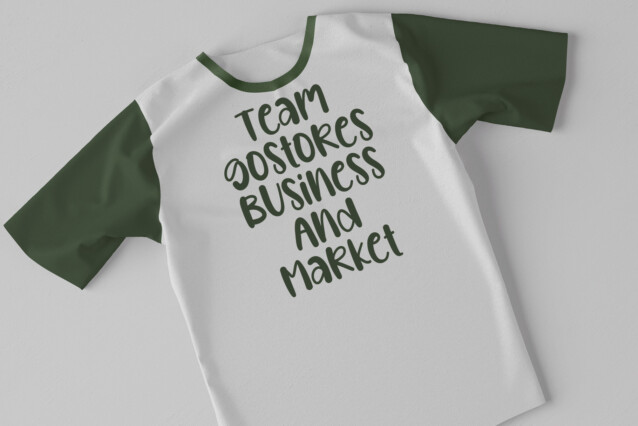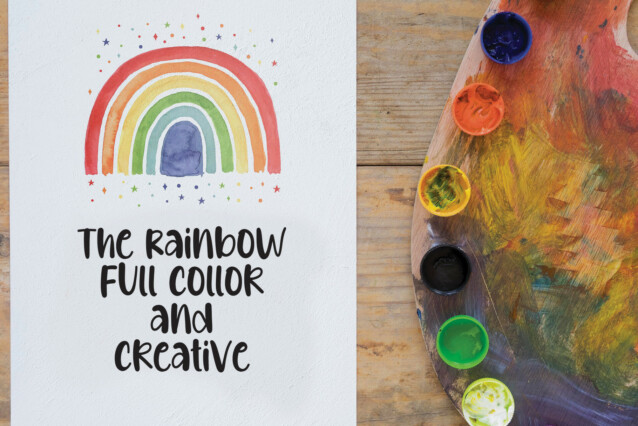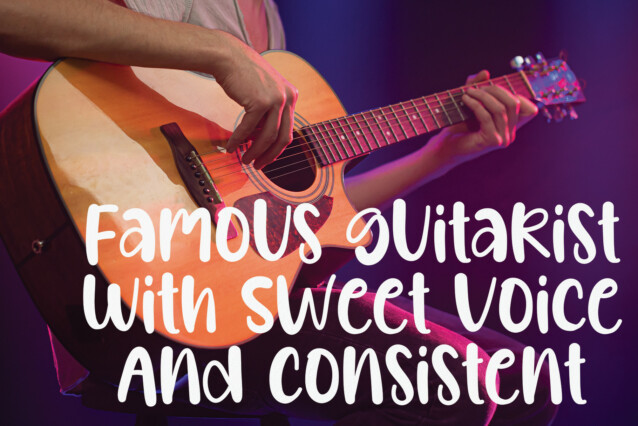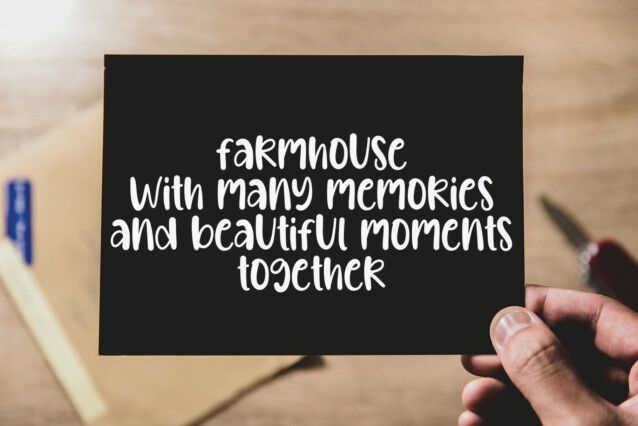
Hello Beautiful Earth Display Font
Hello Beautiful Earth Display Font will give you an extraordinary experience. This splendid handwritten font is perfect for wall displays, wedding invitations, social media post logos, advertisements, product packaging, product designs, labels, photography, watermarks, invitations, stationery, and any project that requires a taste of handwriting.